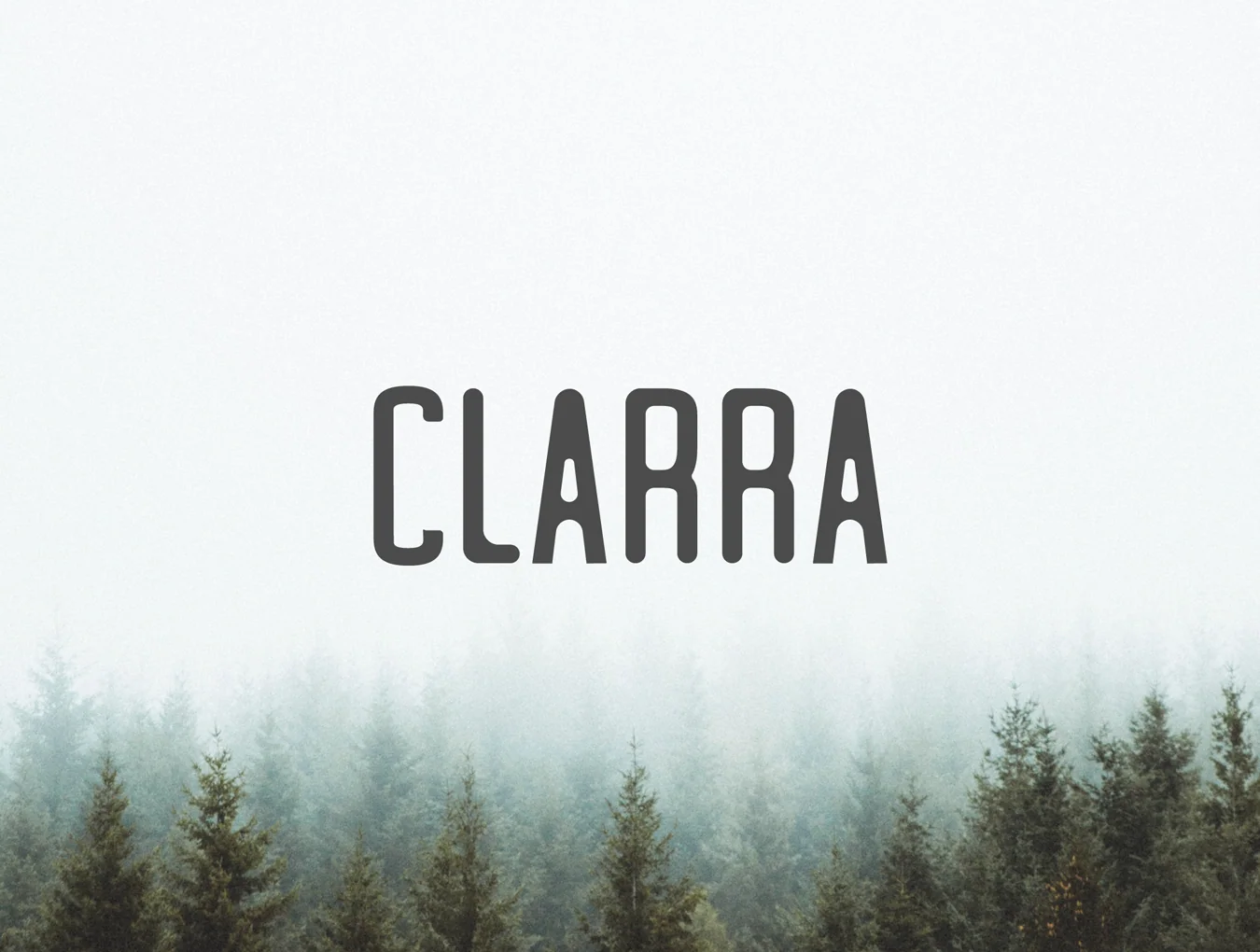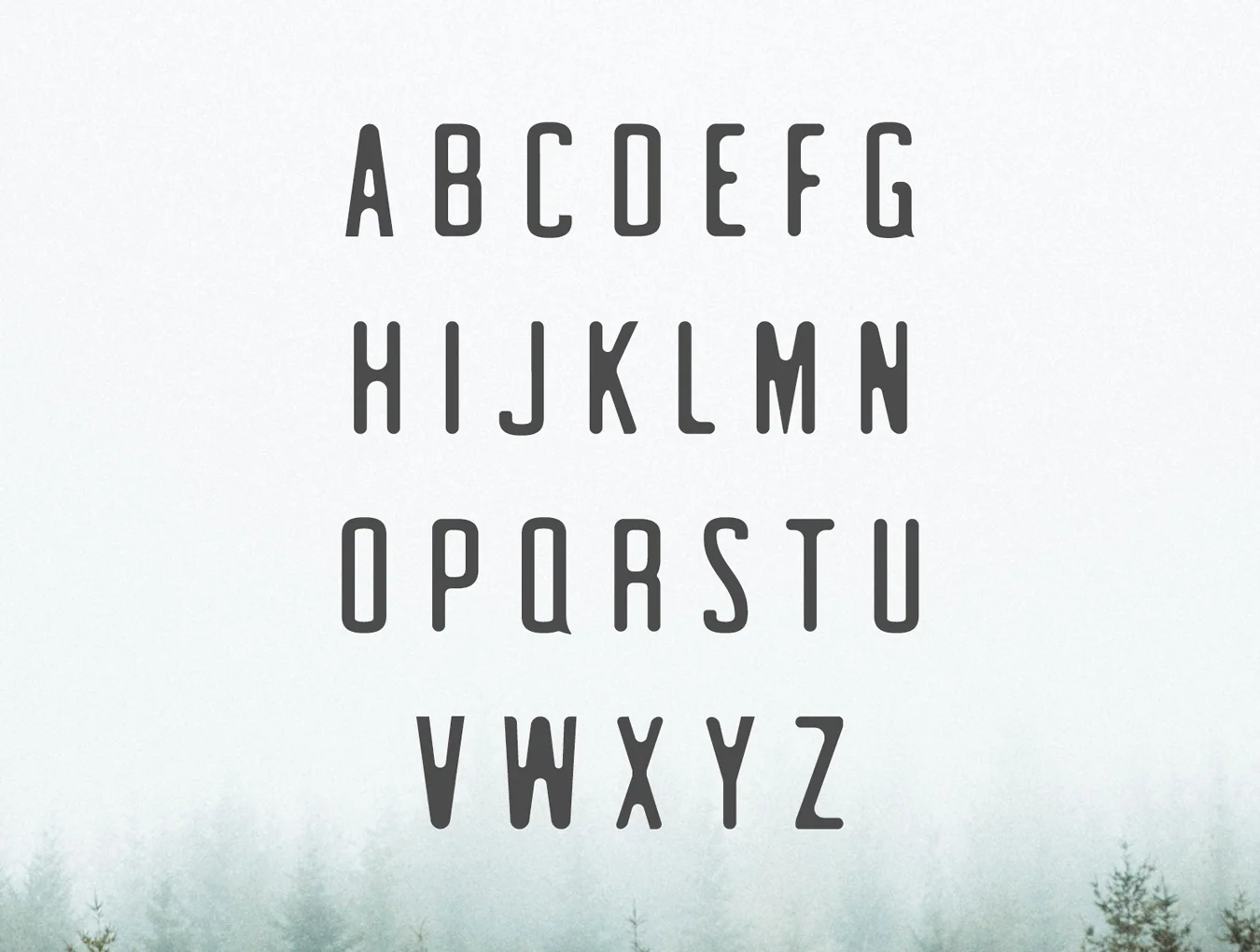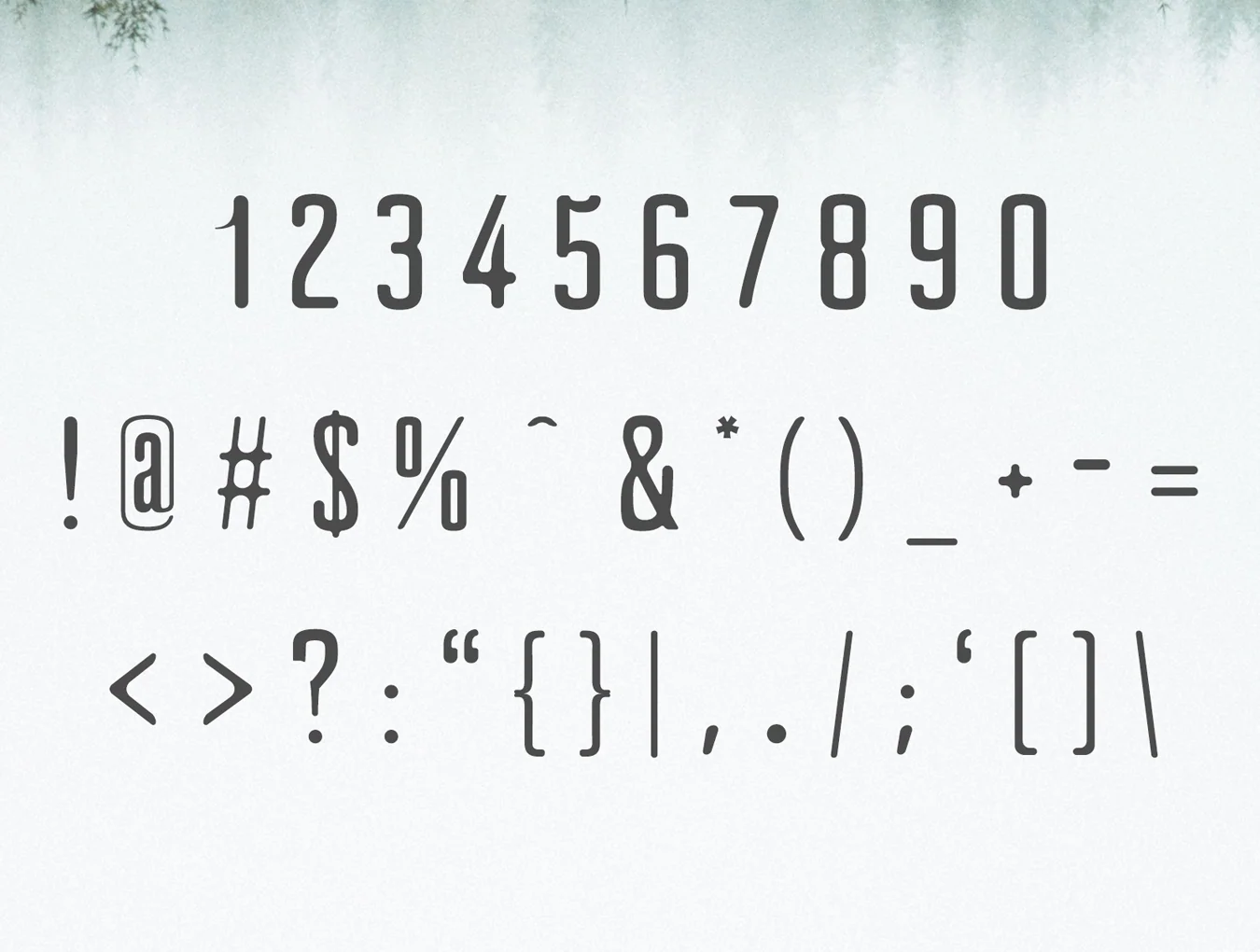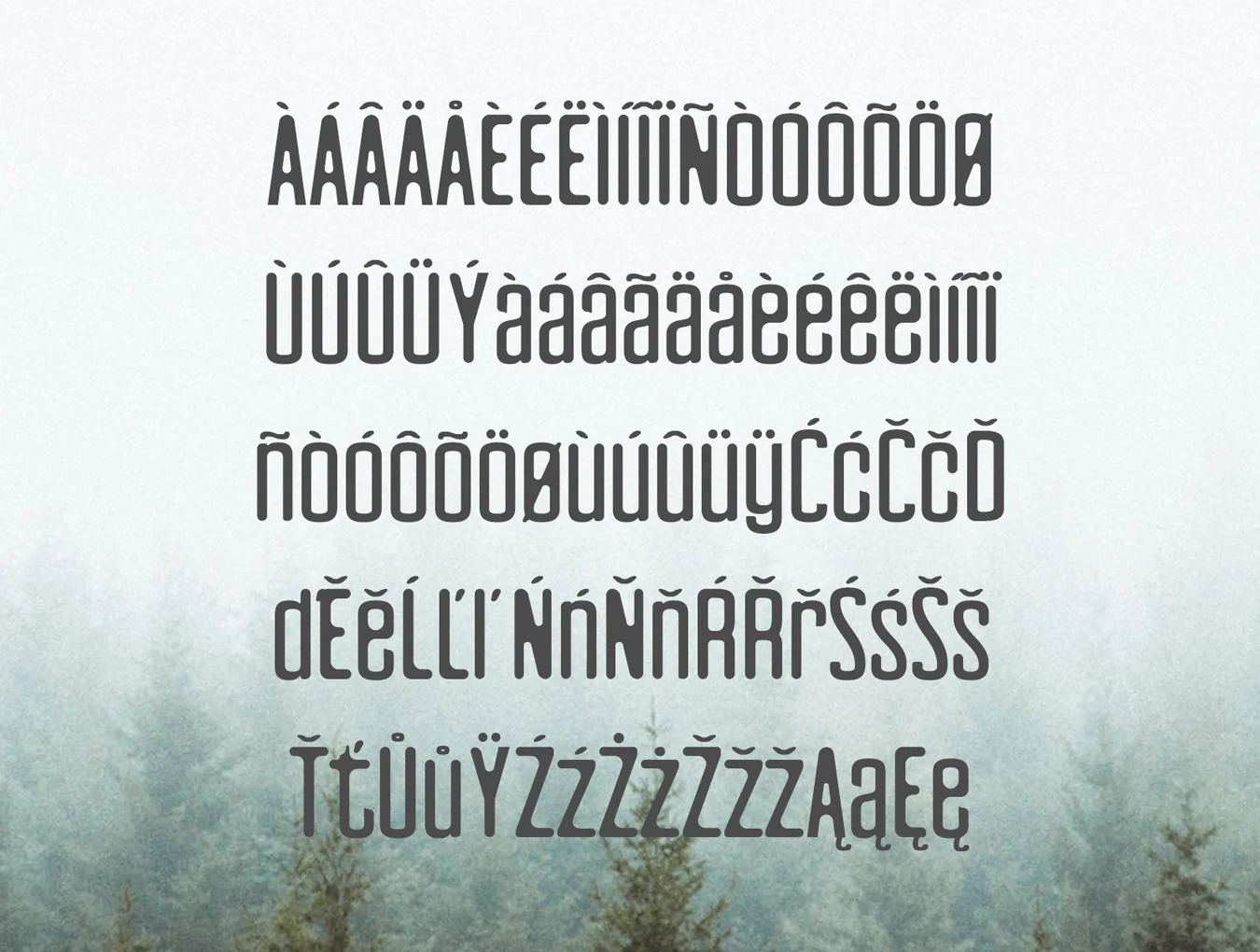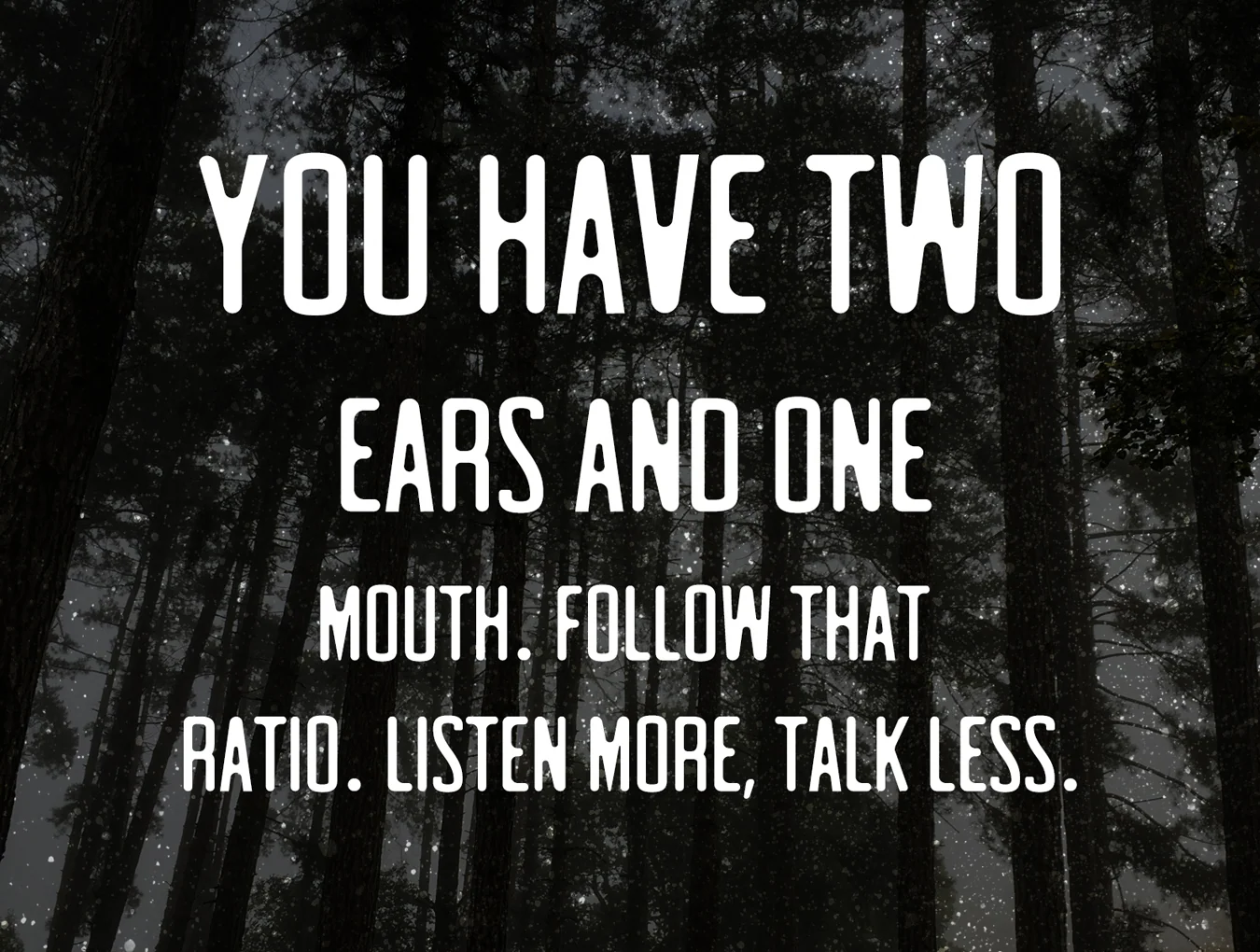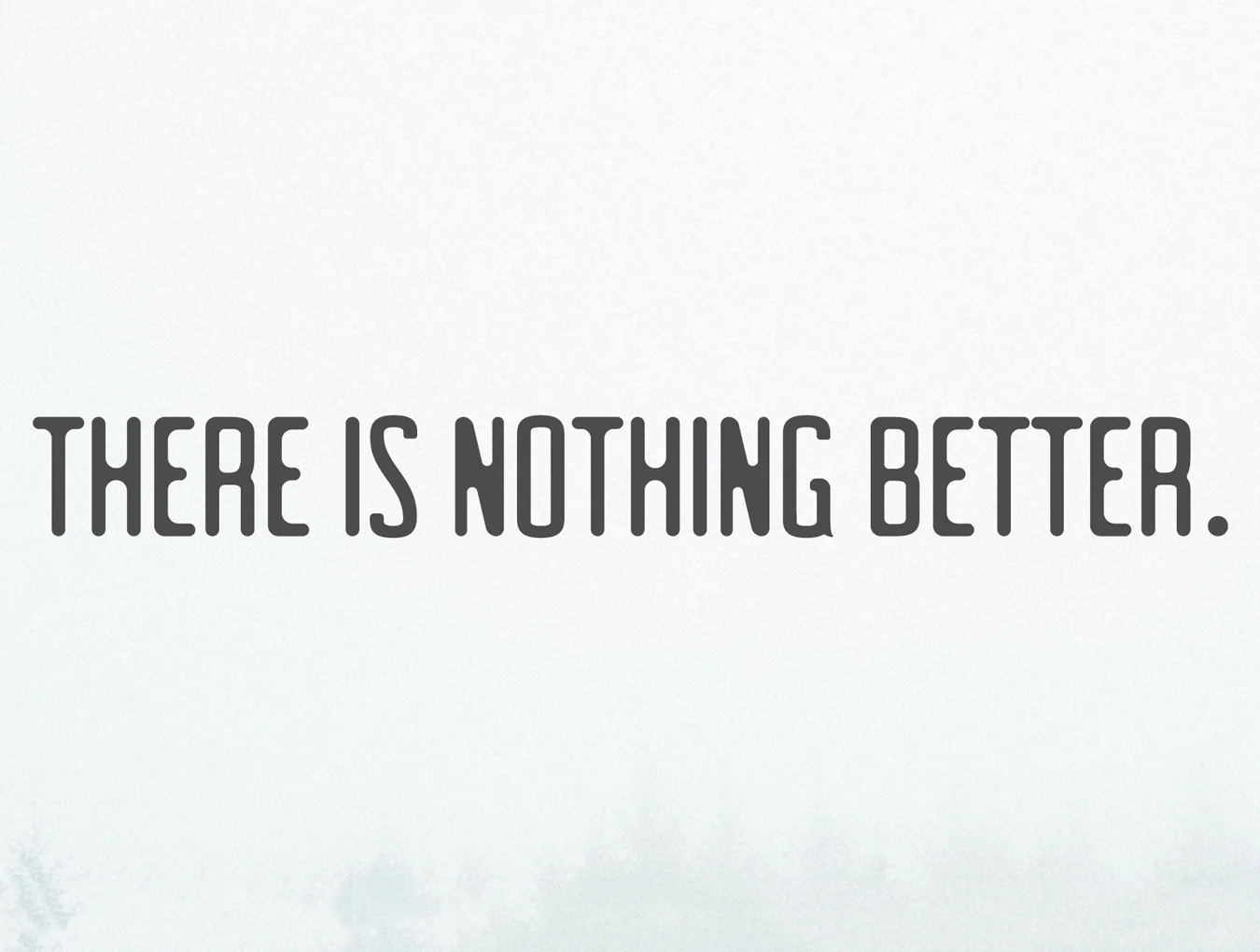
Clarra Sans Serif Family
Clean sans-serif font style
Set of 318 characters
Numerals plus punctuation marks
Clarra Sans Serif Font Family is a bold, sleek rounded sans serif with 5 weights. Ideal for logos, body text, presentations, posters, magazines, notices, titles, business cards, web layouts, invitations, headers, branding, and business designs. Use wide-spaced all caps for an elegant style, or mix uppercase and lowercase for a timeless look.